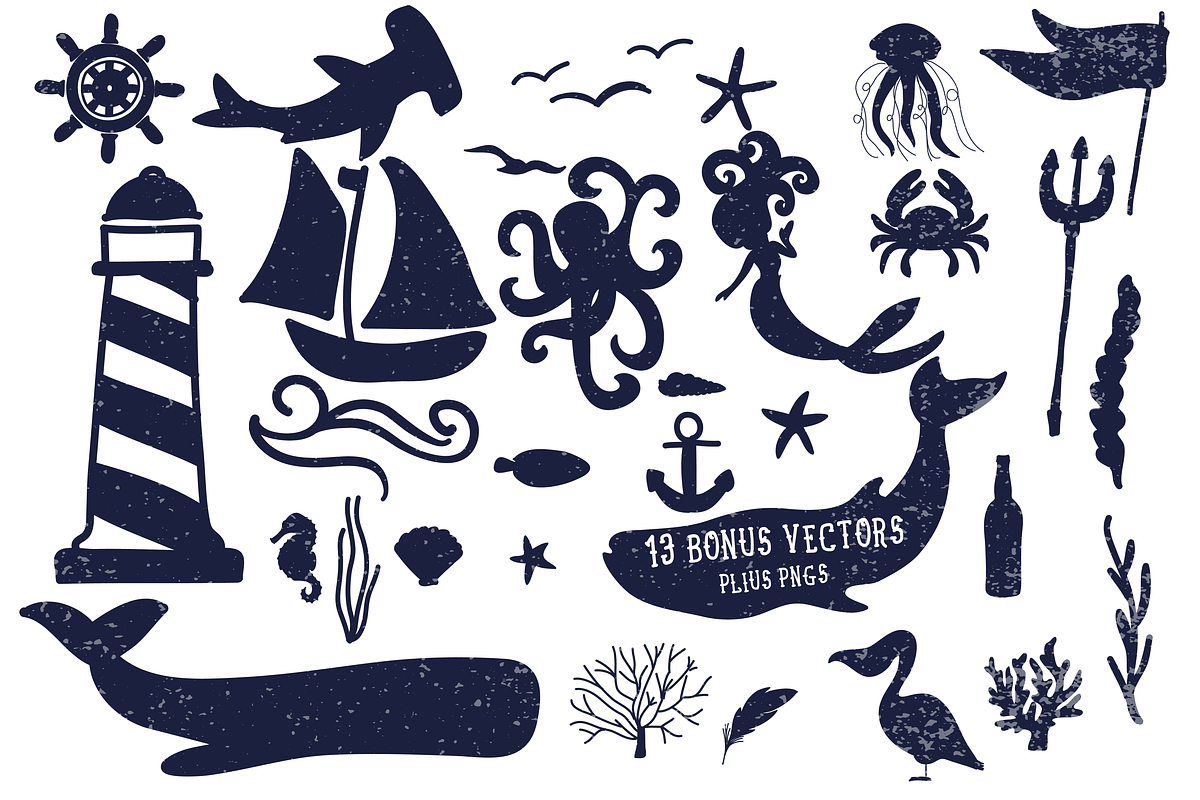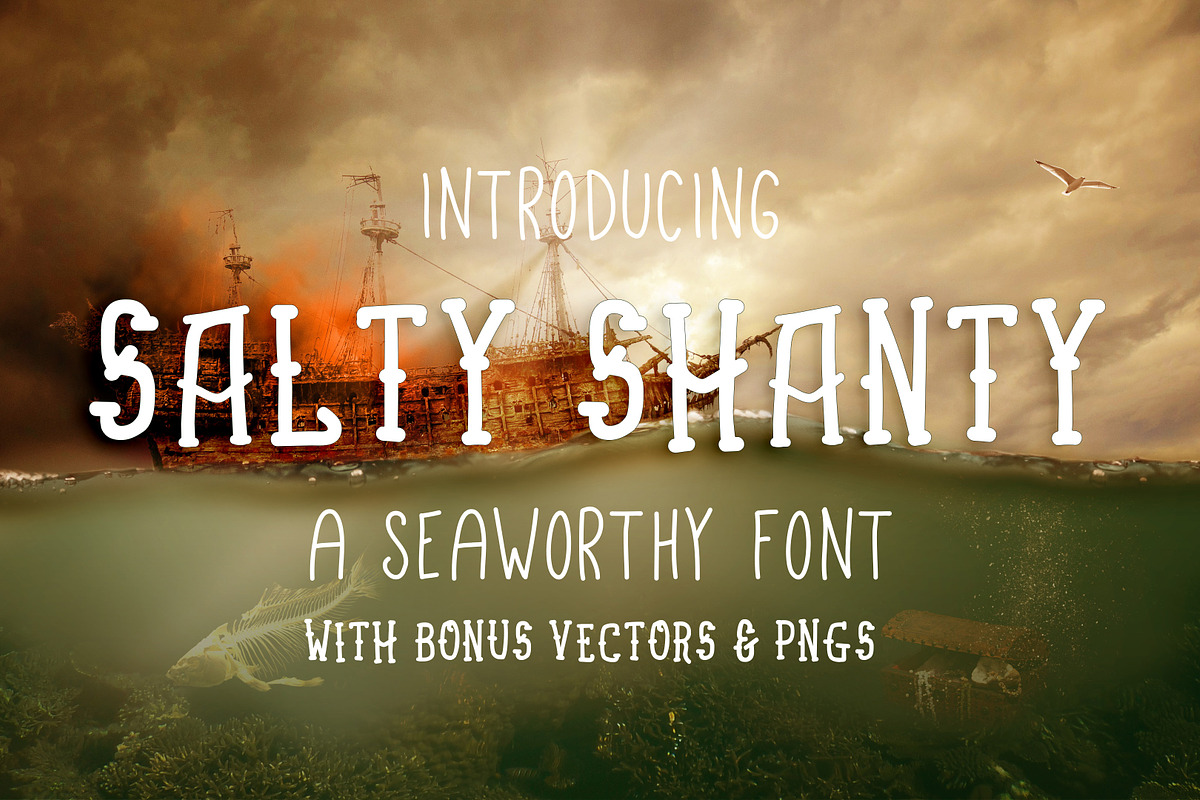
Salty Shanty - A Seaworthy Font
Salty Shanty - A Seaworthy Font by Phat Happy Life is a font selected for branding, posters, packaging, typography.
Why Salty Shanty - A Seaworthy Font is worth a look
Salty Shanty - A Seaworthy Font by Phat Happy Life fits naturally into Branding, posters, packaging, typography.